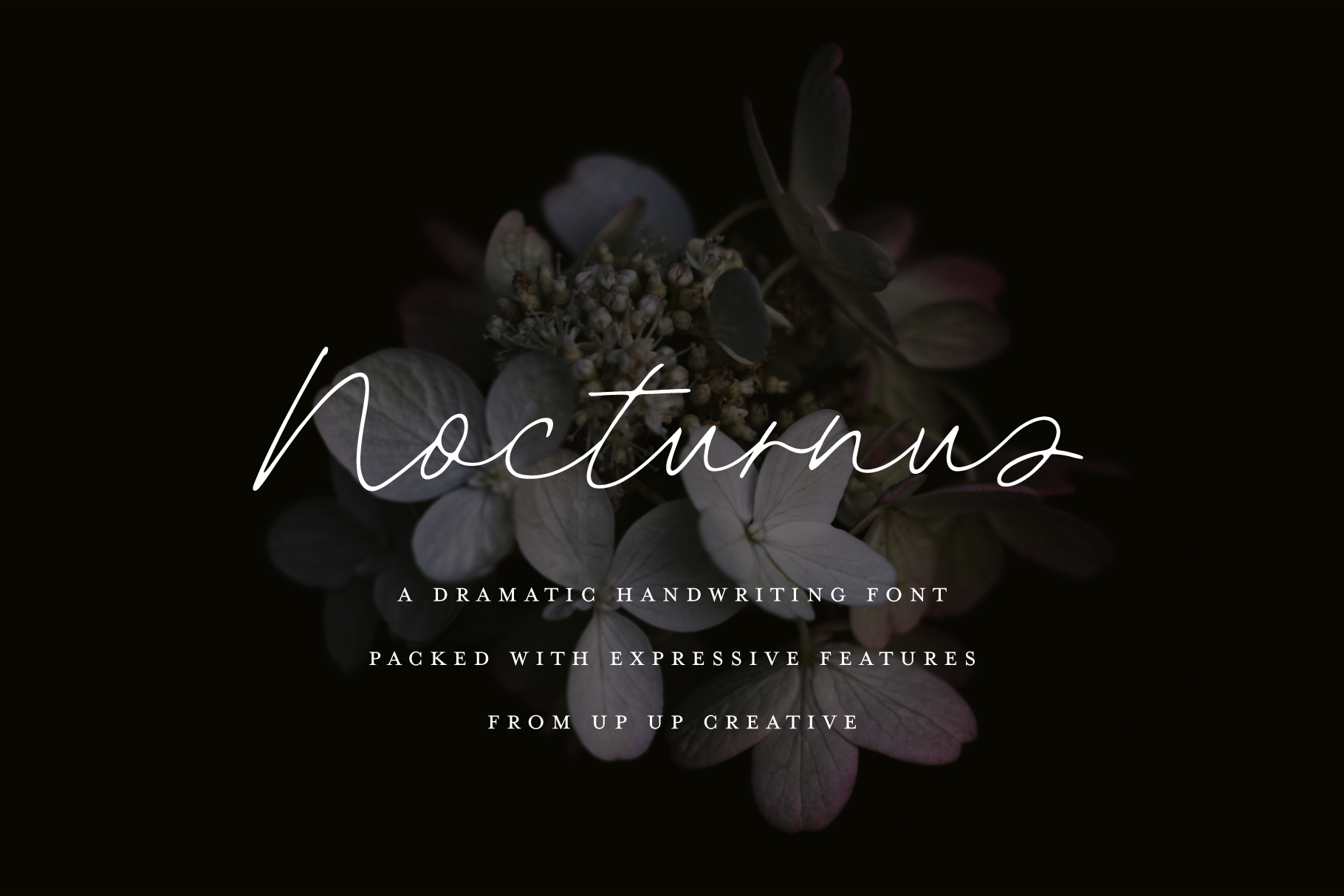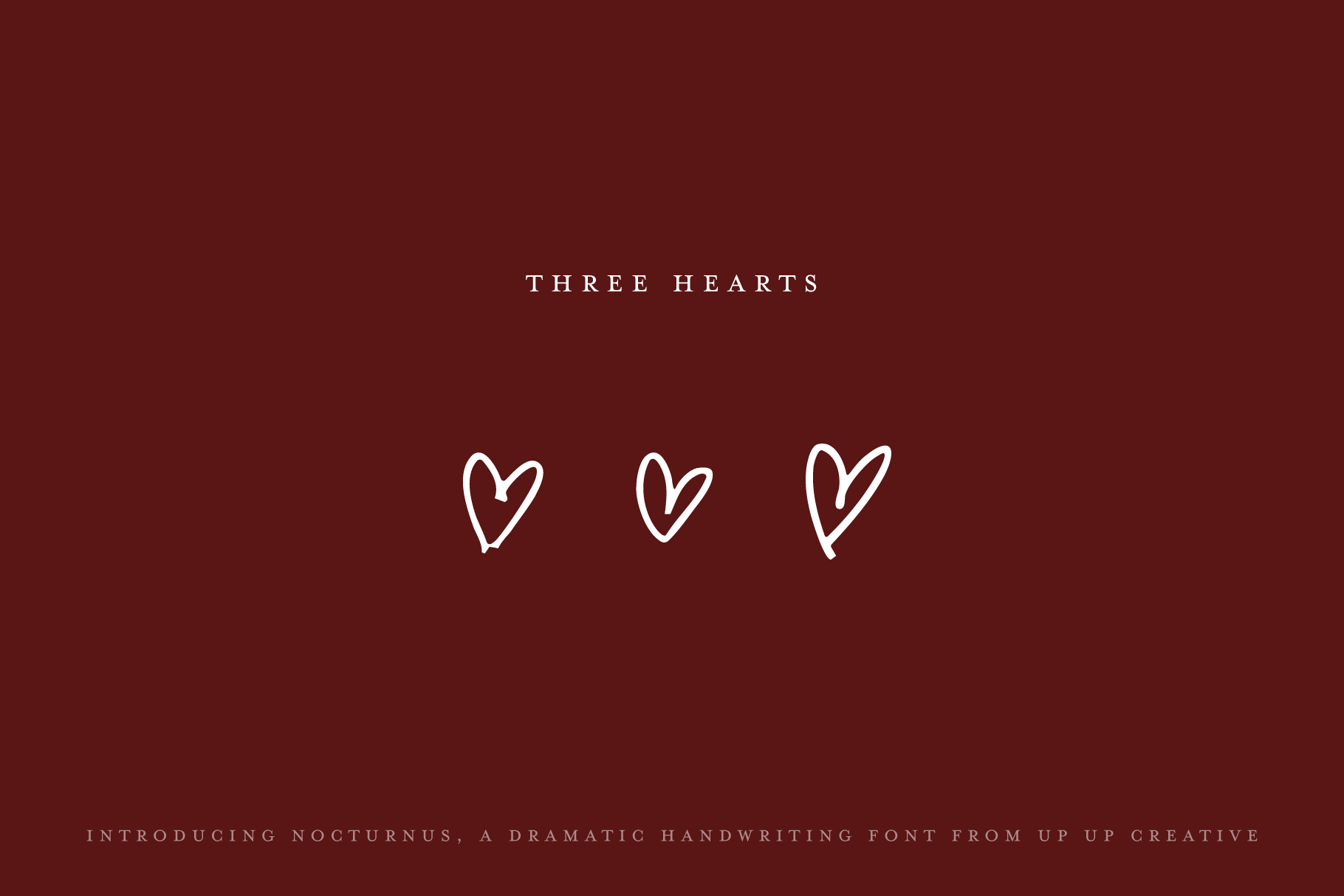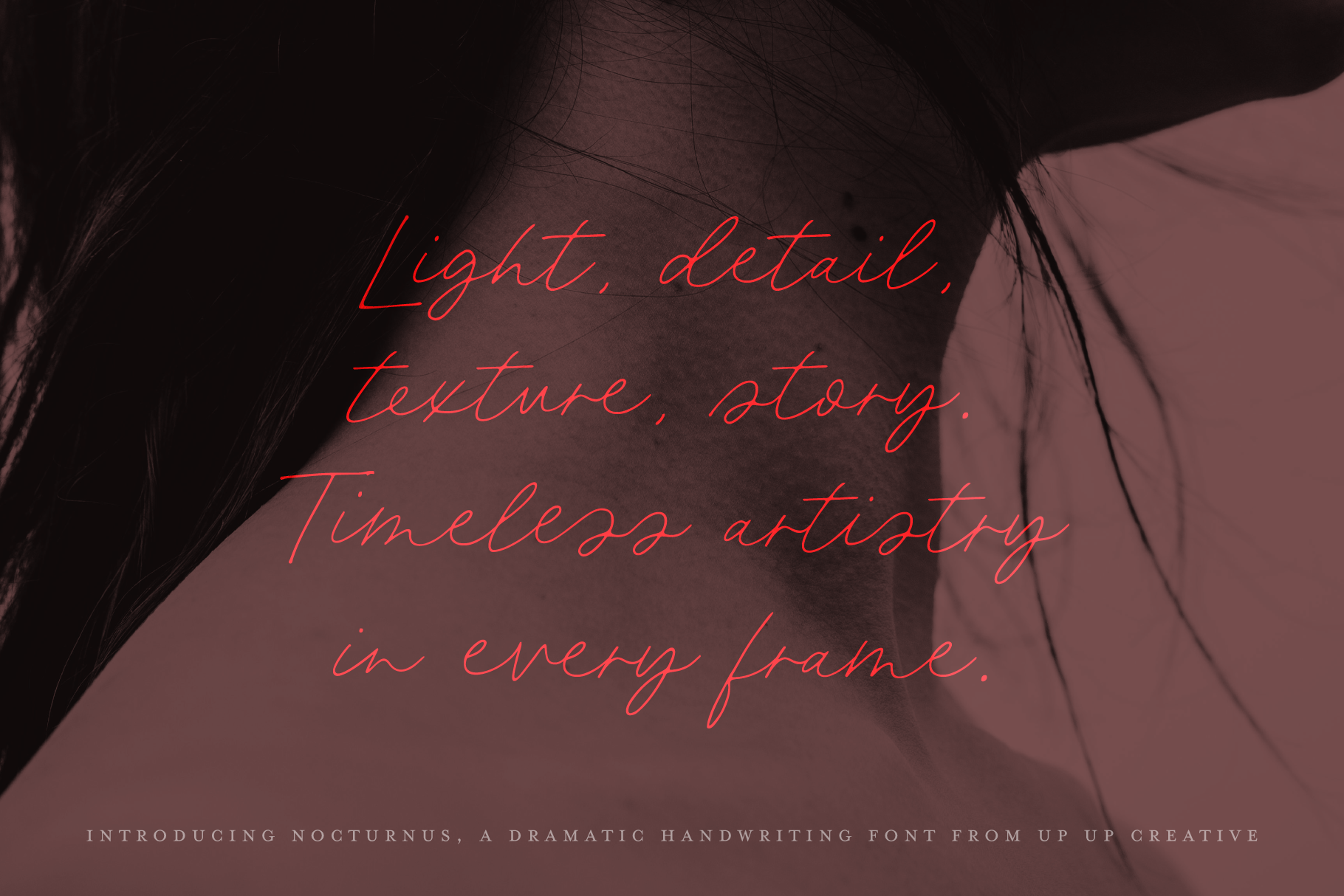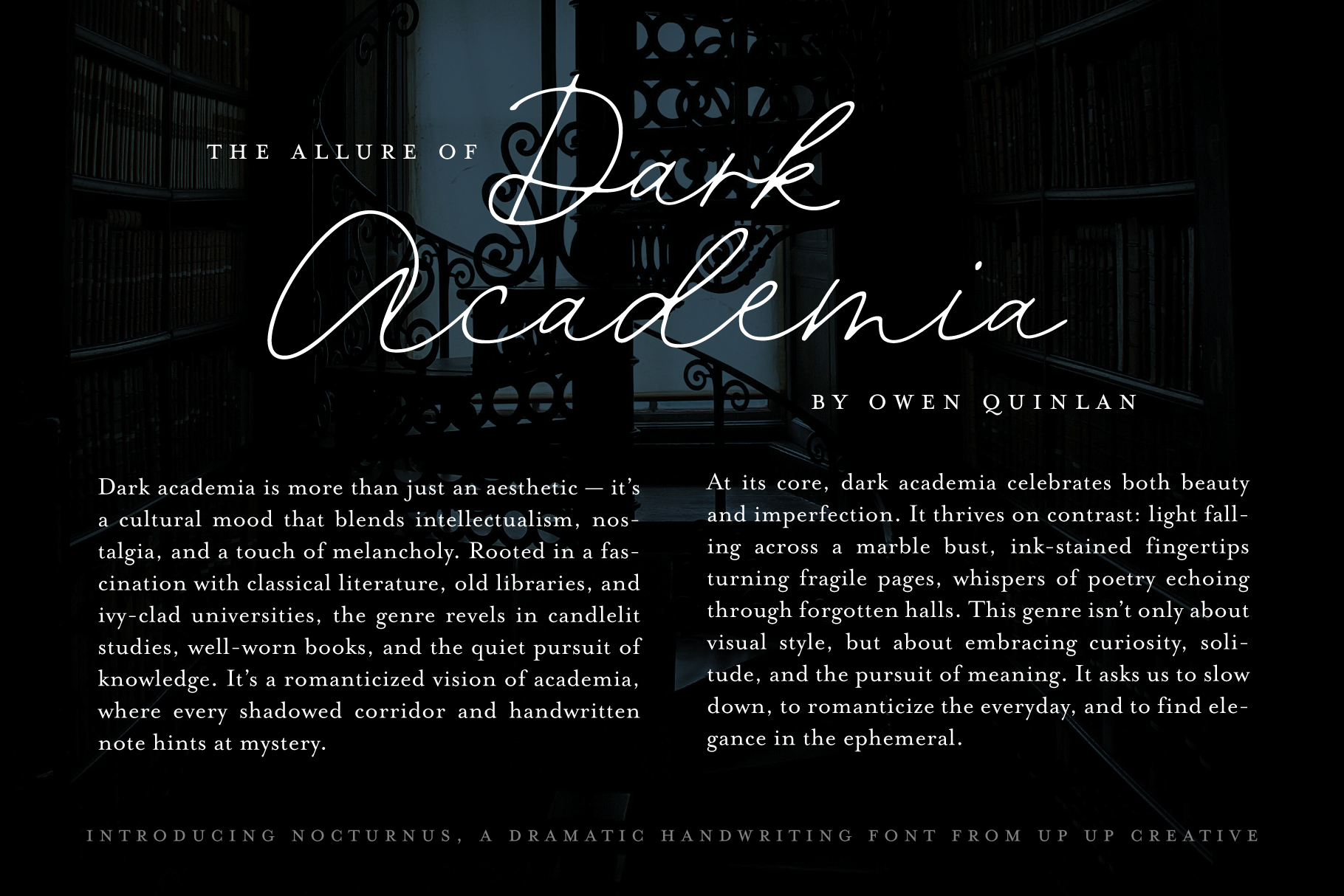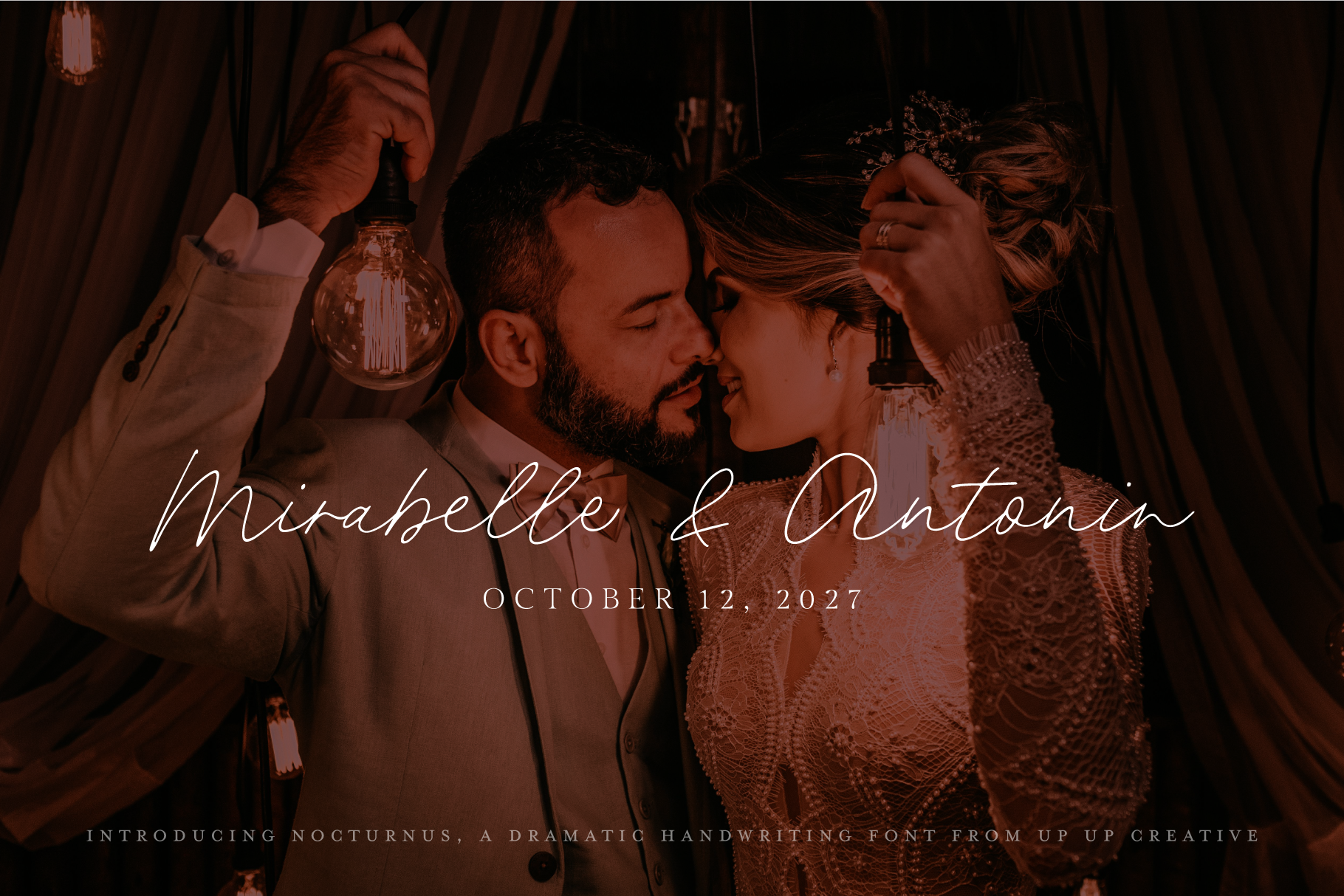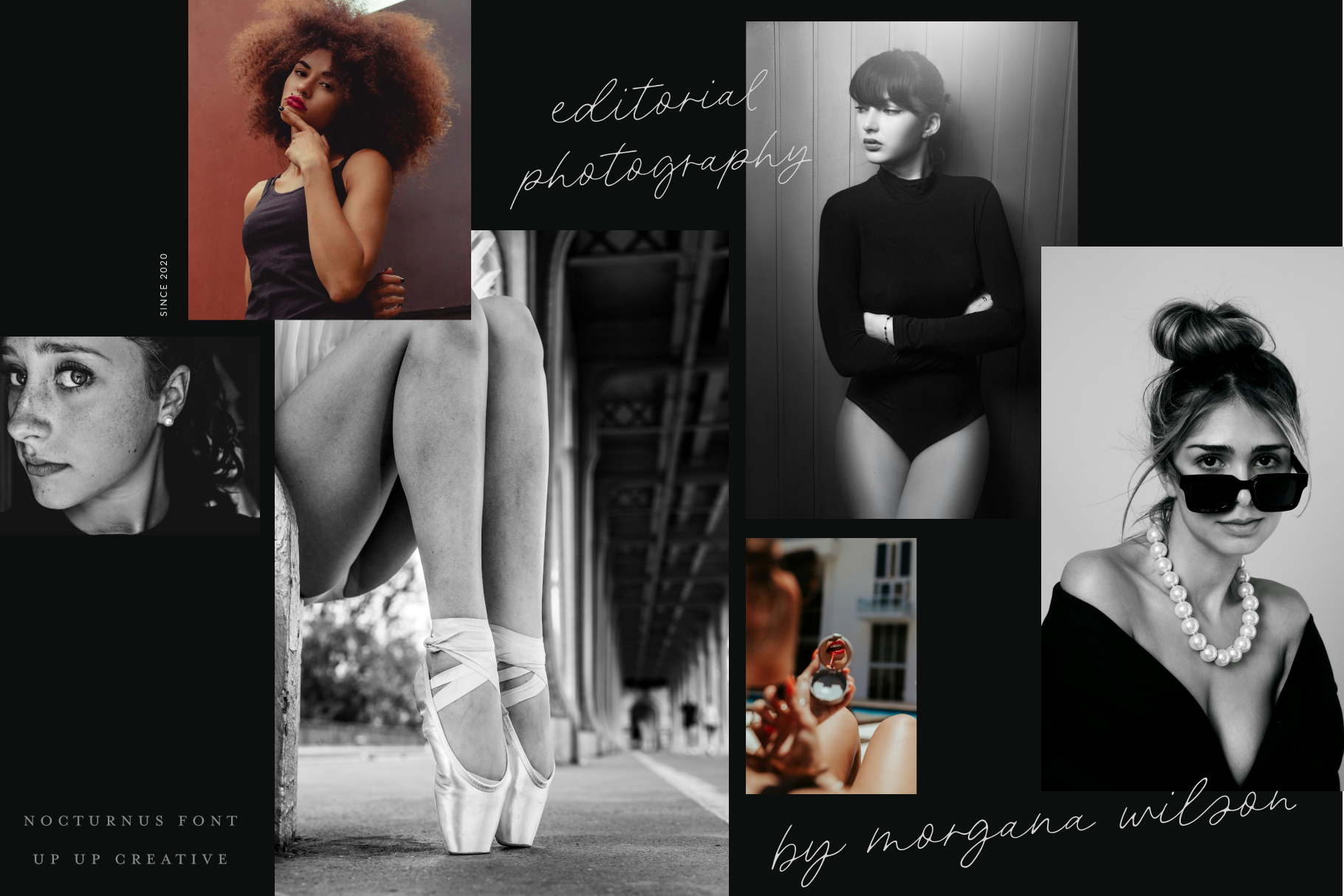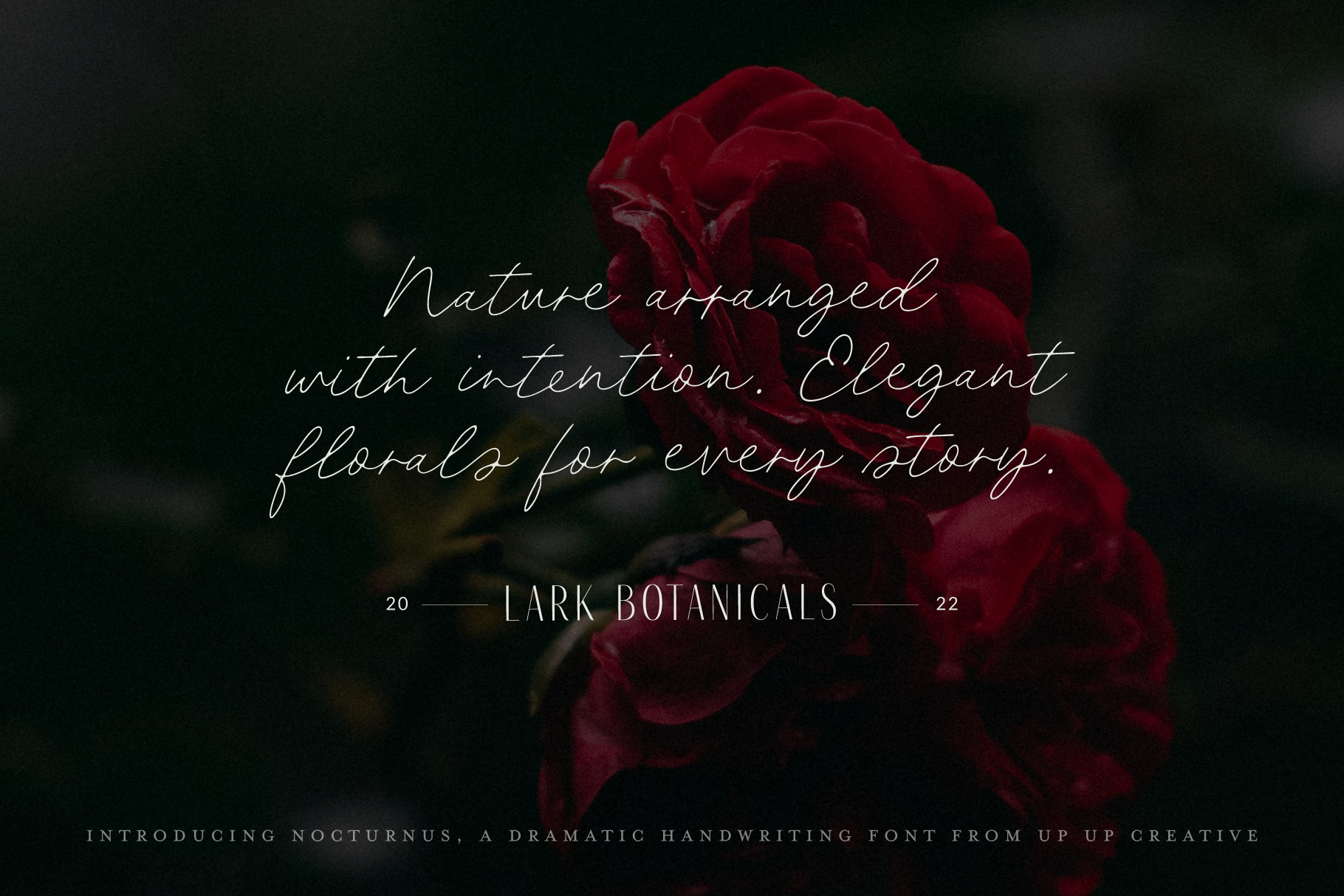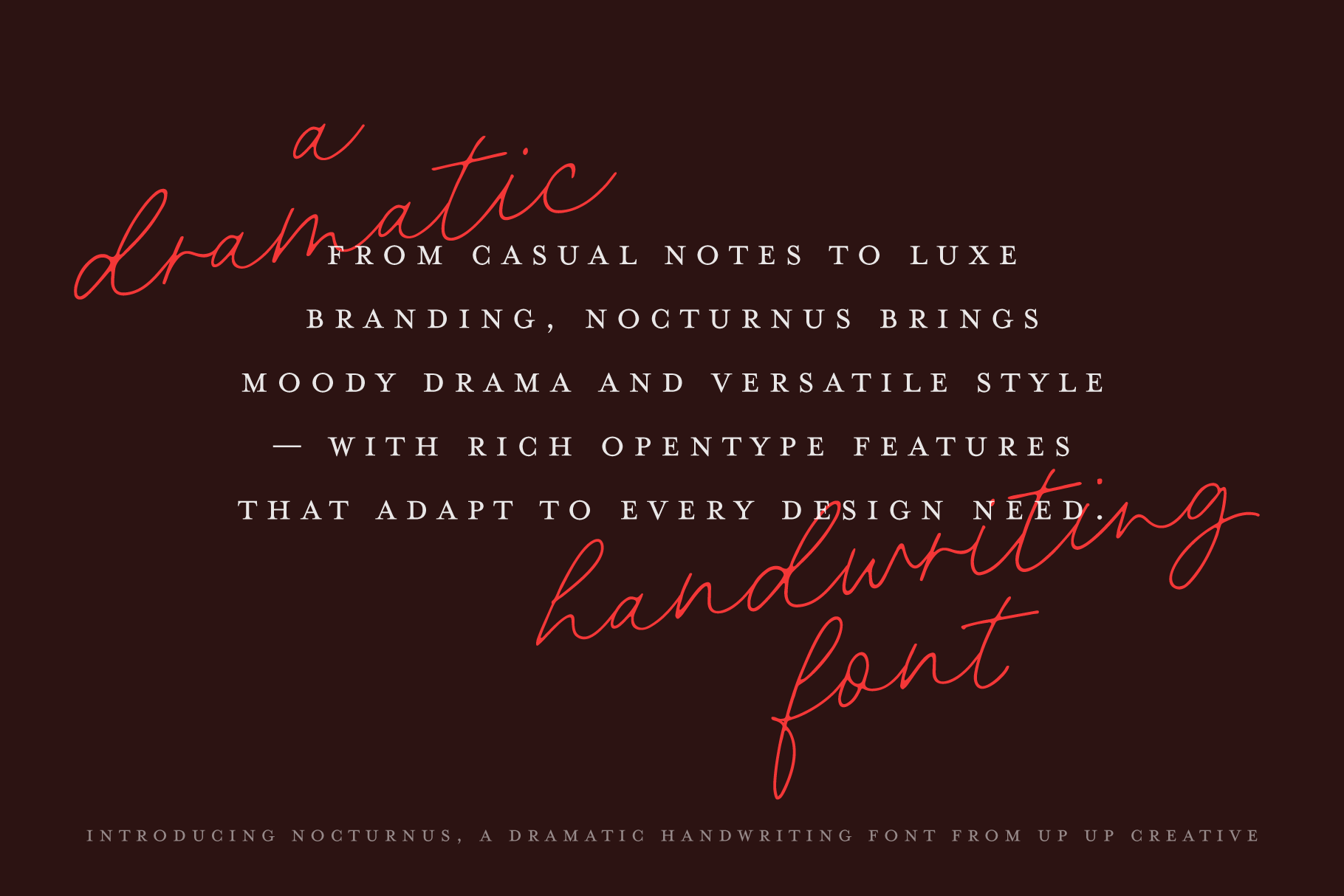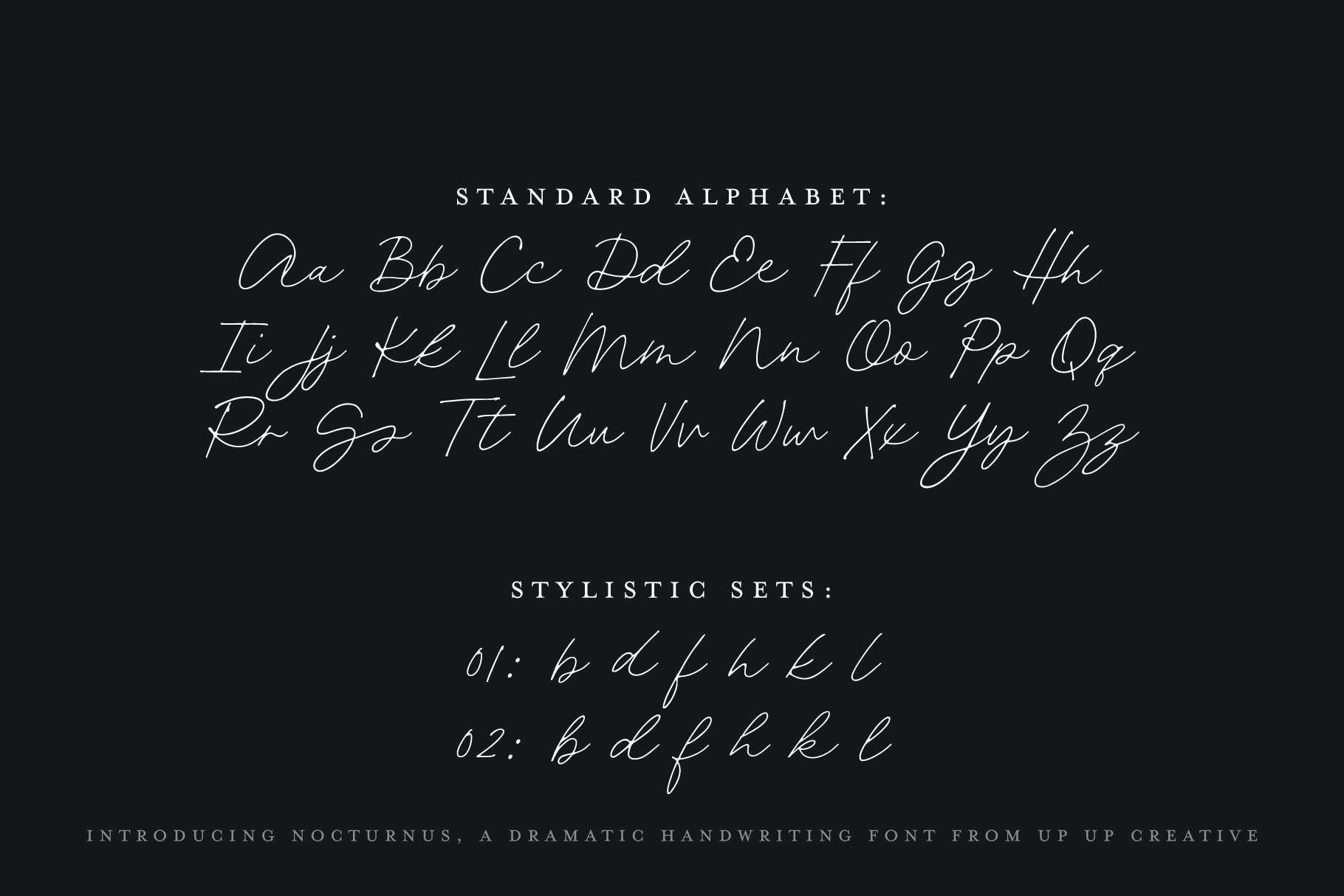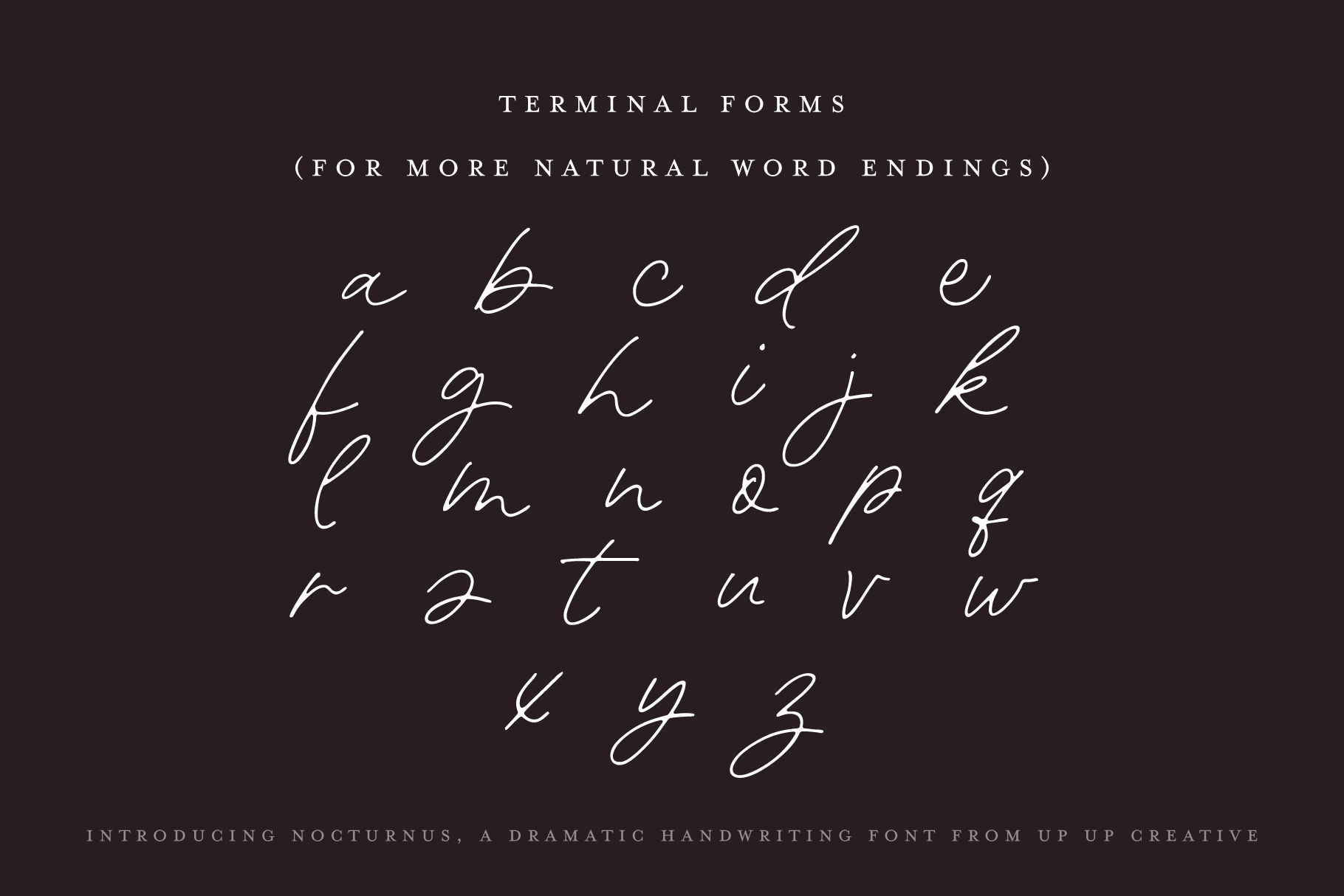
Nocturnus Handwritten Script Font
Nocturnus is a dramatic handwriting font that brings moody elegance and expressive energy to your designs. Whether you’re creating for high-end branding, editorial spreads, wedding invitations, or bold social media graphics, Nocturnus adapts effortlessly. Its blend of edgy imperfection and refined detail makes it just as suitable for luxury projects as for more casual settings, ensuring your words always make a lasting impression.
Nocturnus includes the following OpenType features:
- character variants
- contextual alternates
- discretionary ligatures
- initial and final forms
- fractions, ordinals, and superscripts
- localized forms (multi-language and multi-currency support)
- standard ligatures
- stylistic sets
Includes 170 ligatures
- Includes 802 glyphs
- 1 Style, 1 Weight